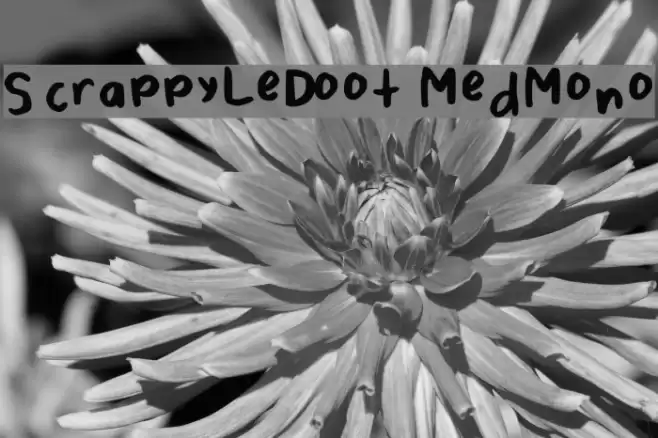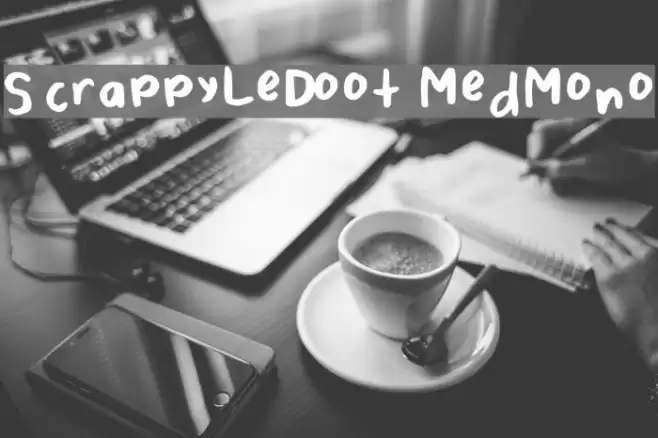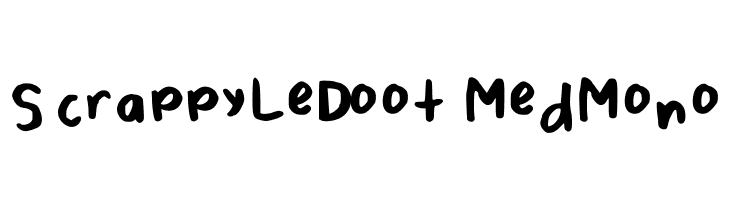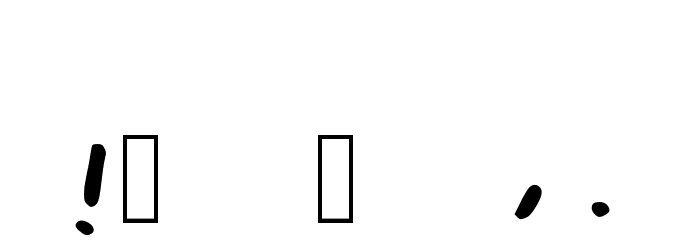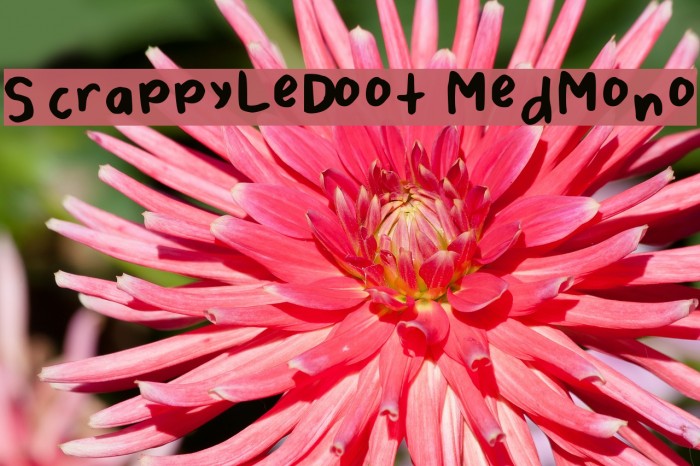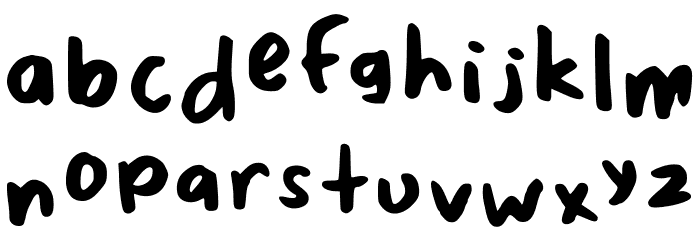
ScrappyLeDoot-MedMono Font
ScrappyLeDoot-MedMono Description
This font features a playful and informal handwritten style, characterized by its bold and rounded letterforms. The strokes are uneven, giving it a casual and friendly appearance. The uppercase and lowercase letters maintain a consistent style, with a slightly exaggerated width that enhances its whimsical nature. The numbers and special characters follow the same playful design, making it suitable for creative projects. The overall look is approachable and fun, making it ideal for designs that aim to convey a sense of humor or lightheartedness.
A bold, playful handwritten font with rounded, uneven strokes from Handwritten fonts.
- Proposed Projects: Ideal for children's books, comic strips, playful branding, and informal invitations.
- Overall Style: Playful, Informal
- Use Case: Headlines, Logos, Informal Text